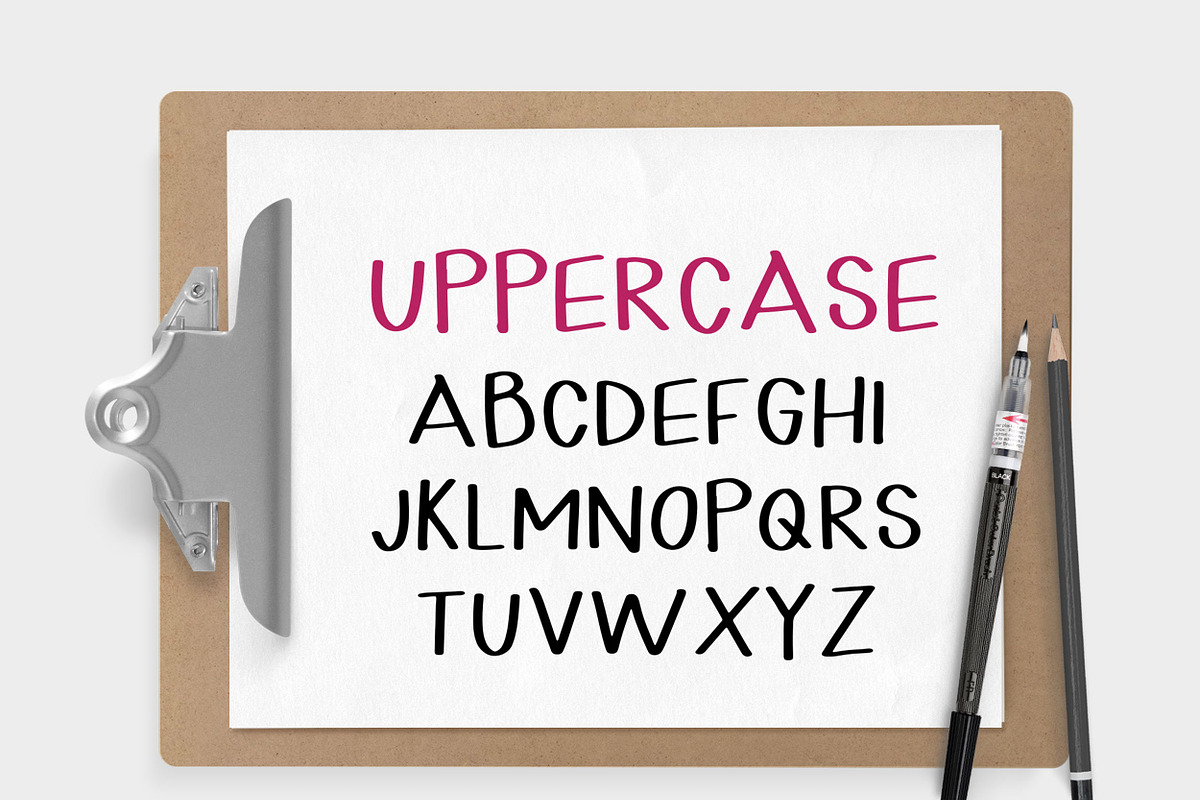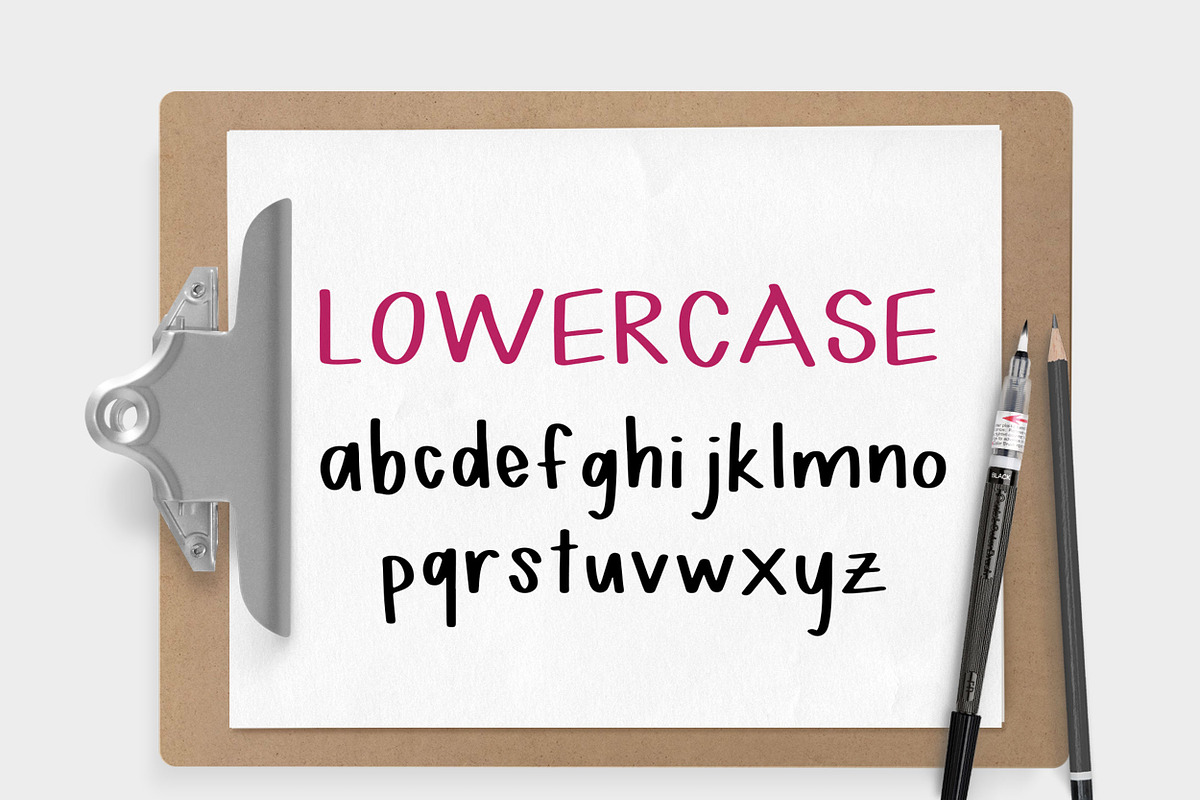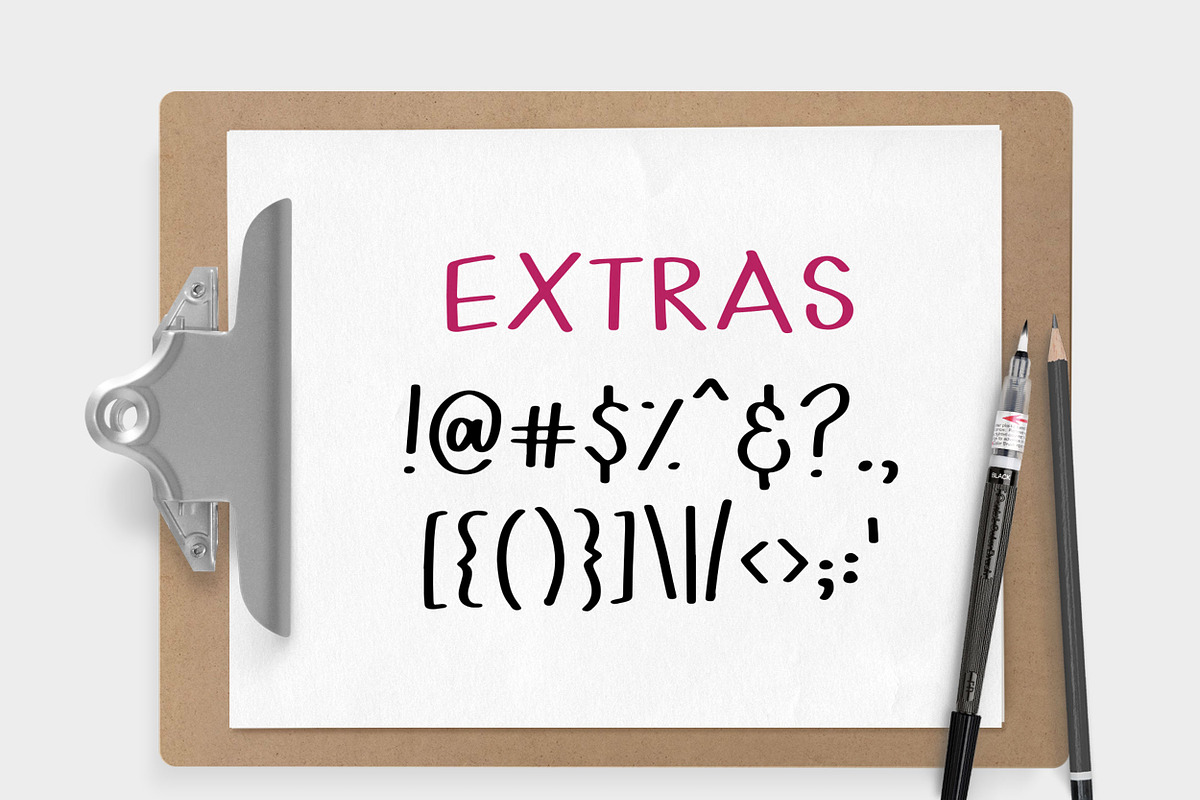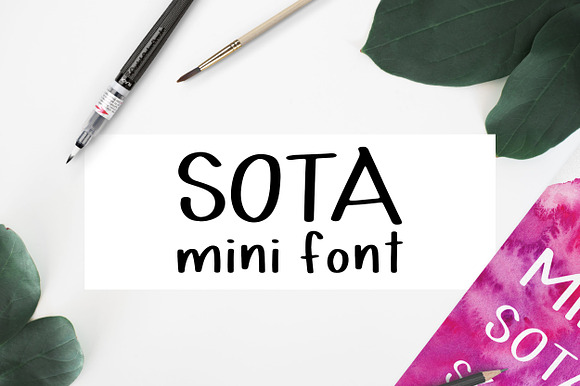
Sota Mini Font
Sota Mini Font is perfect for any project that needs a hand-made feel and can be easily paired with other fonts!
Because Sota is a mini font, it includes uppercase, lowercase, numbers, and basic english symbols. Feel free to give it a test run below!
Sota Mini Font by Hewitt Avenue fits naturally into Branding, posters, packaging, typography.